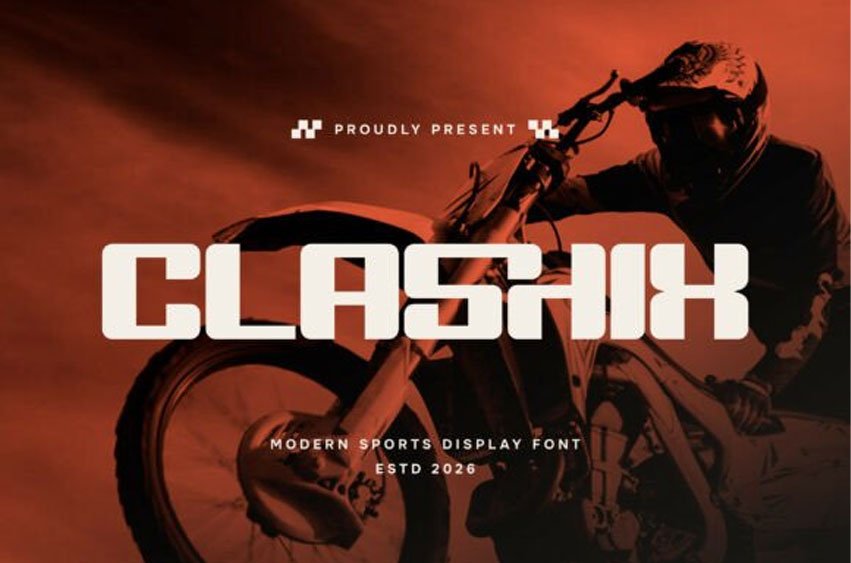
Clashix Font
Clashix Font is a modern sport display font built for speed, strength, and high-energy visuals. With its sharp angles, bold structure, and dynamic letterforms, Clashix delivers a powerful and competitive look that instantly captures attention.
The design reflects movement and intensity, making it perfect for projects that demand a strong and athletic presence.